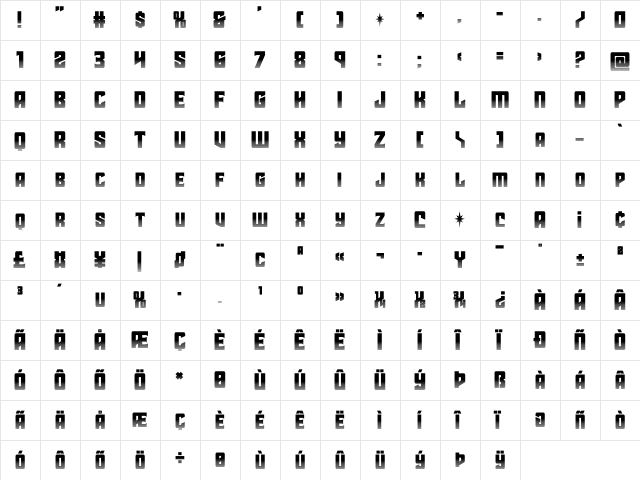
Star Guard Halftone Regular
Design Context for Star Guard Halftone Typeface
Star Guard Halftone is a composed and adaptable typeface that performs quietly and consistently across a wide range of design contexts.